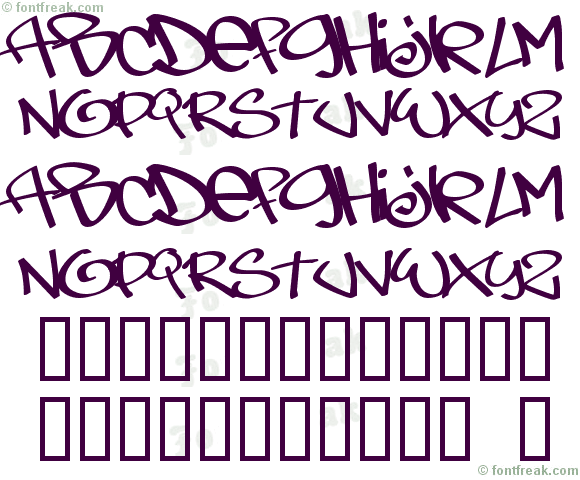
TagsXtreme
About TagsXtreme
TagsXtreme is a dynamic display font designed by Pizzadude, offering a unique blend of playfulness and modernity. This freeware font falls into the display category, making it perfect for eye-catching designs that require a distinct personality. With its bold stroke weight and slightly irregular shapes, TagsXtreme captures attention while maintaining readability. The font features a casual, handwritten style with some decorative elements, such as playful curves and whimsical loops that add to its charm.
Best suited for creative projects, TagsXtreme shines in various applications. It works wonderfully for event promotions, such as music festivals or community gatherings, where a lively vibe is essential. This font is also ideal for branding small businesses, particularly in the food and beverage industry, as it can impart a friendly and inviting atmosphere to menus or packaging. Additionally, TagsXtreme is a great choice for digital content, including social media graphics, where it can draw viewers in and enhance engagement. Graphic designers and content creators will appreciate its versatility, as it allows for experimentation across different mediums.
The target audience for TagsXtreme includes graphic designers, small business owners, and content creators looking for a font that can convey a sense of fun and approachability. Its unique character makes it a valuable addition to any designer's toolkit.
What sets TagsXtreme apart is its ability to fuse creativity with functionality. The font's lively design not only stands out visually but also resonates emotionally, making it a powerful choice for various projects. If you're looking to make a statement in your design, consider the TagsXtreme font free download to elevate your work with a touch of whimsy.